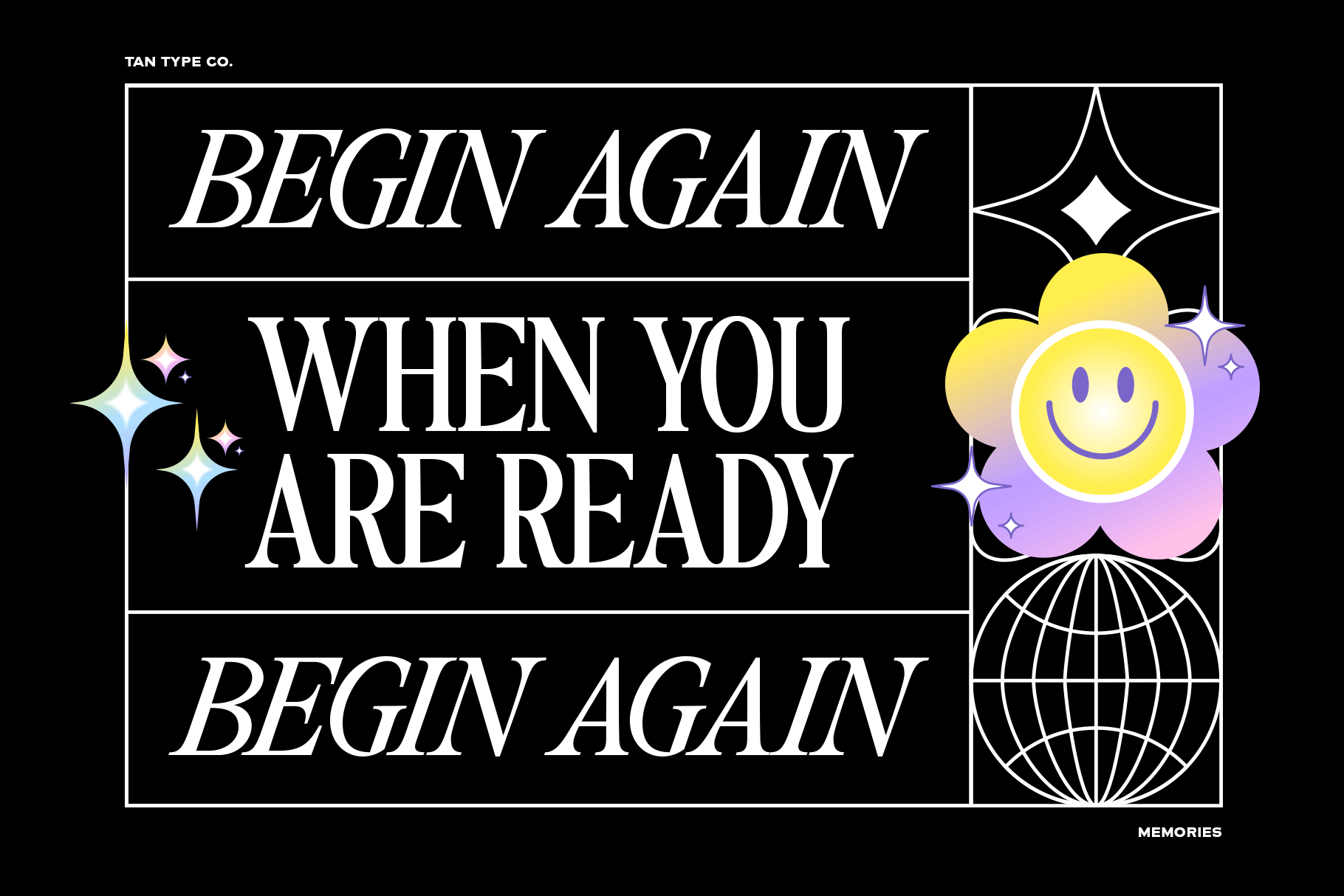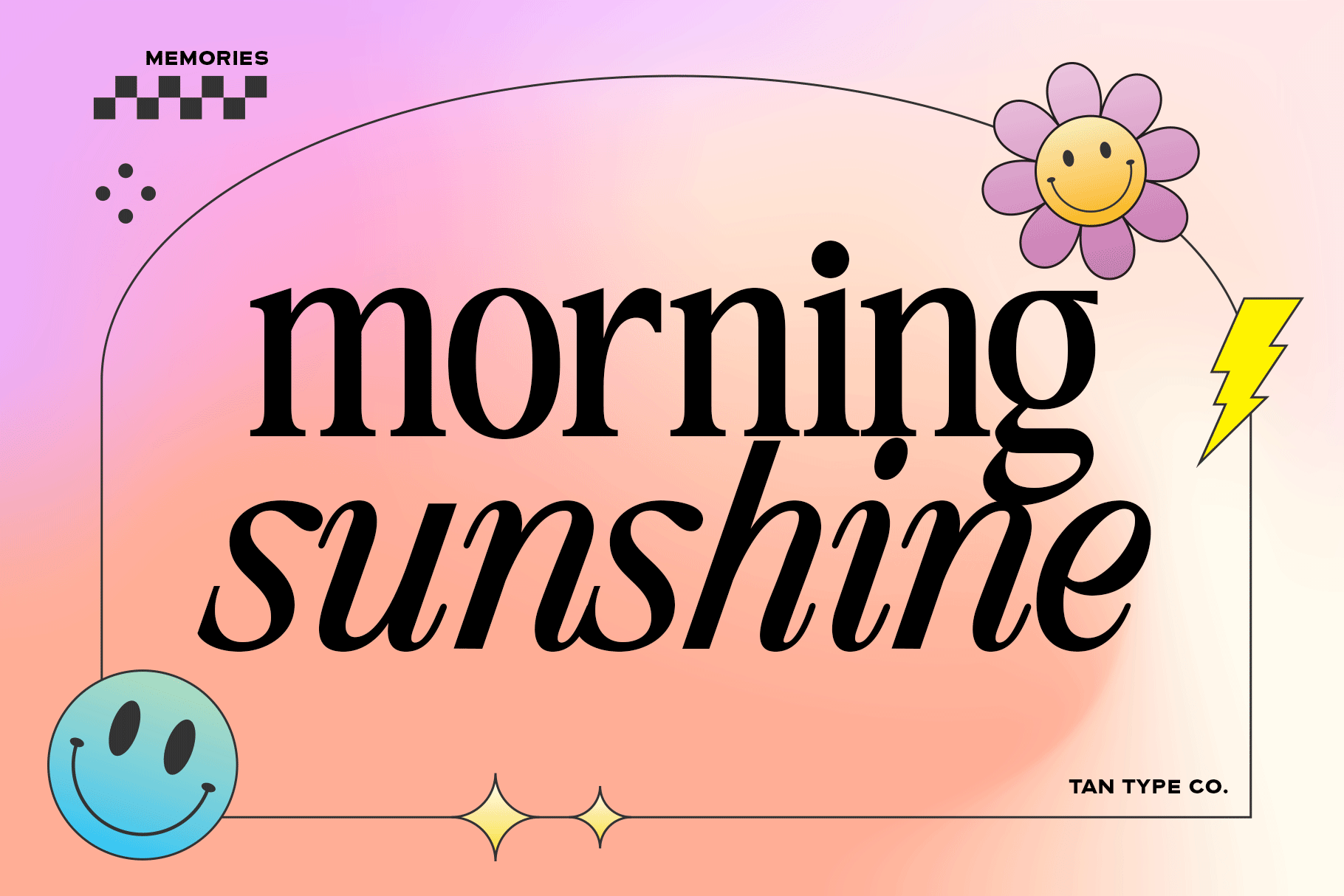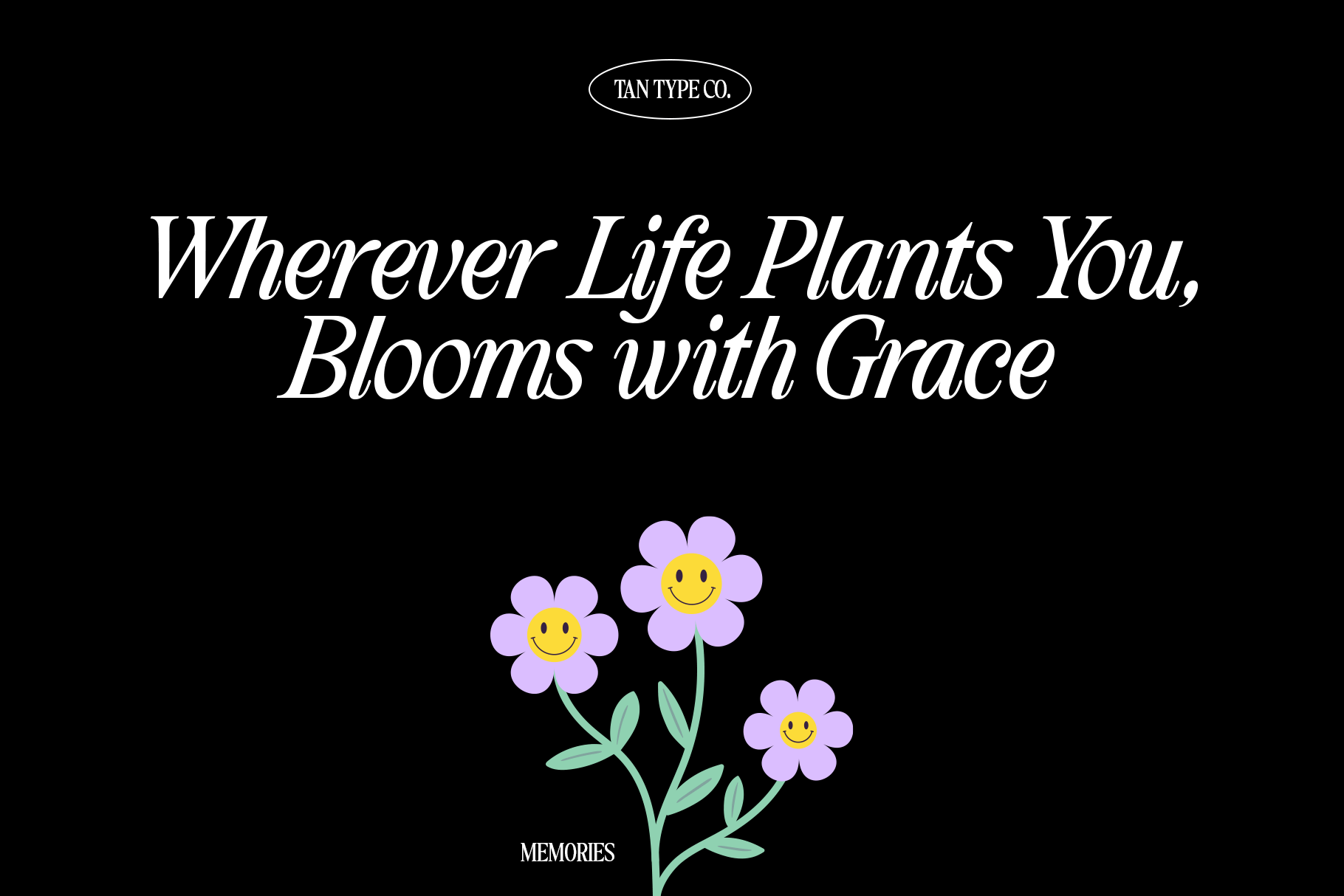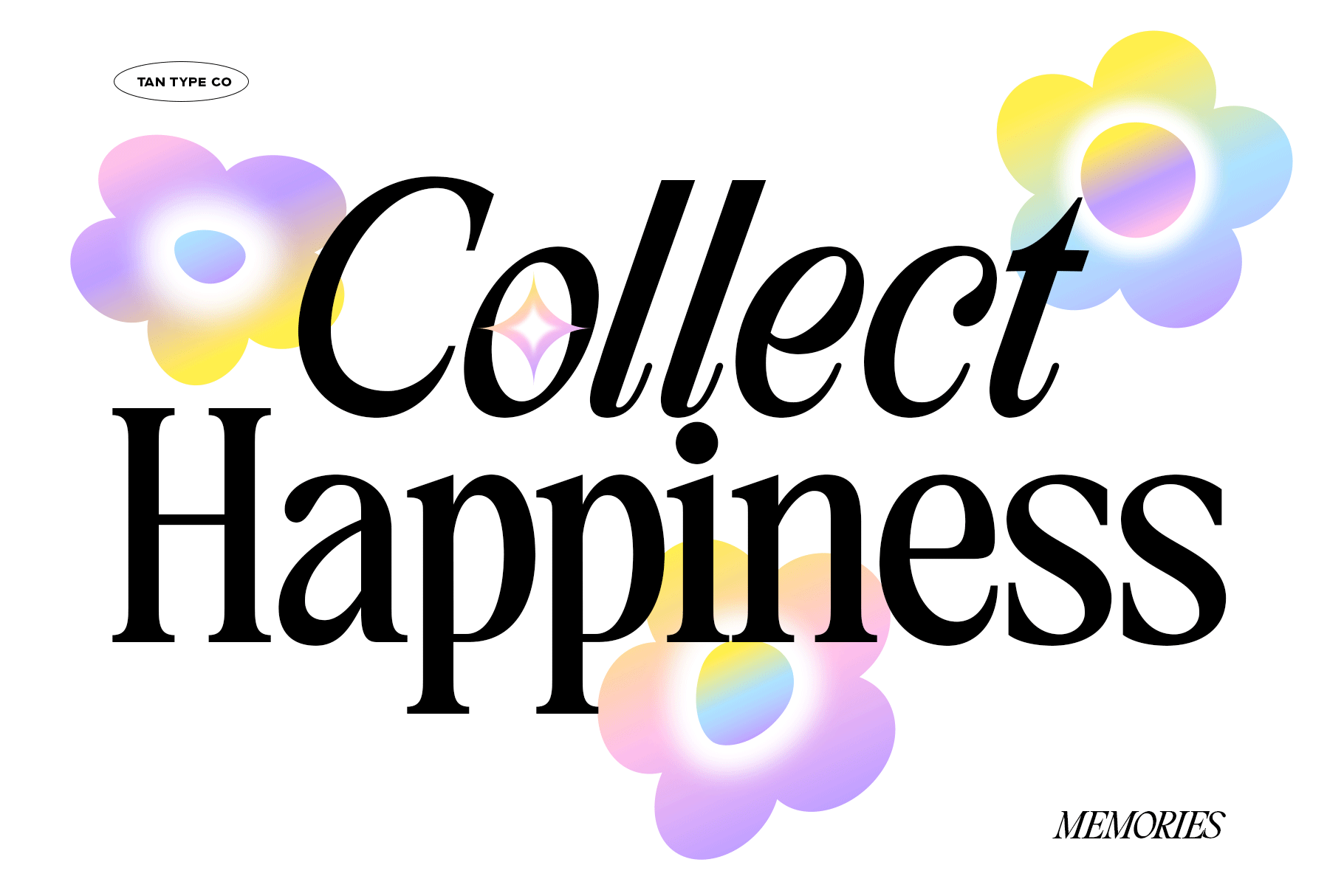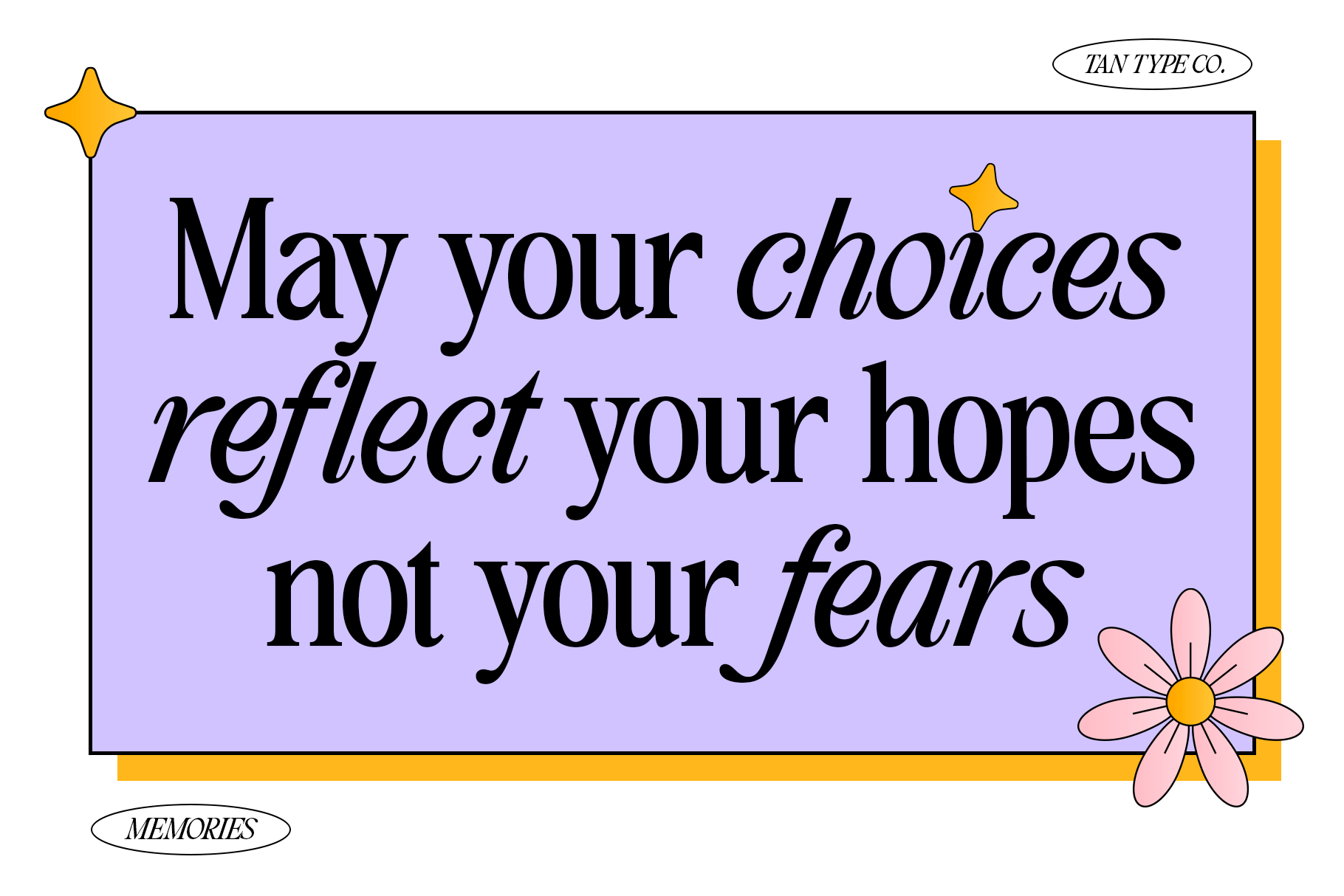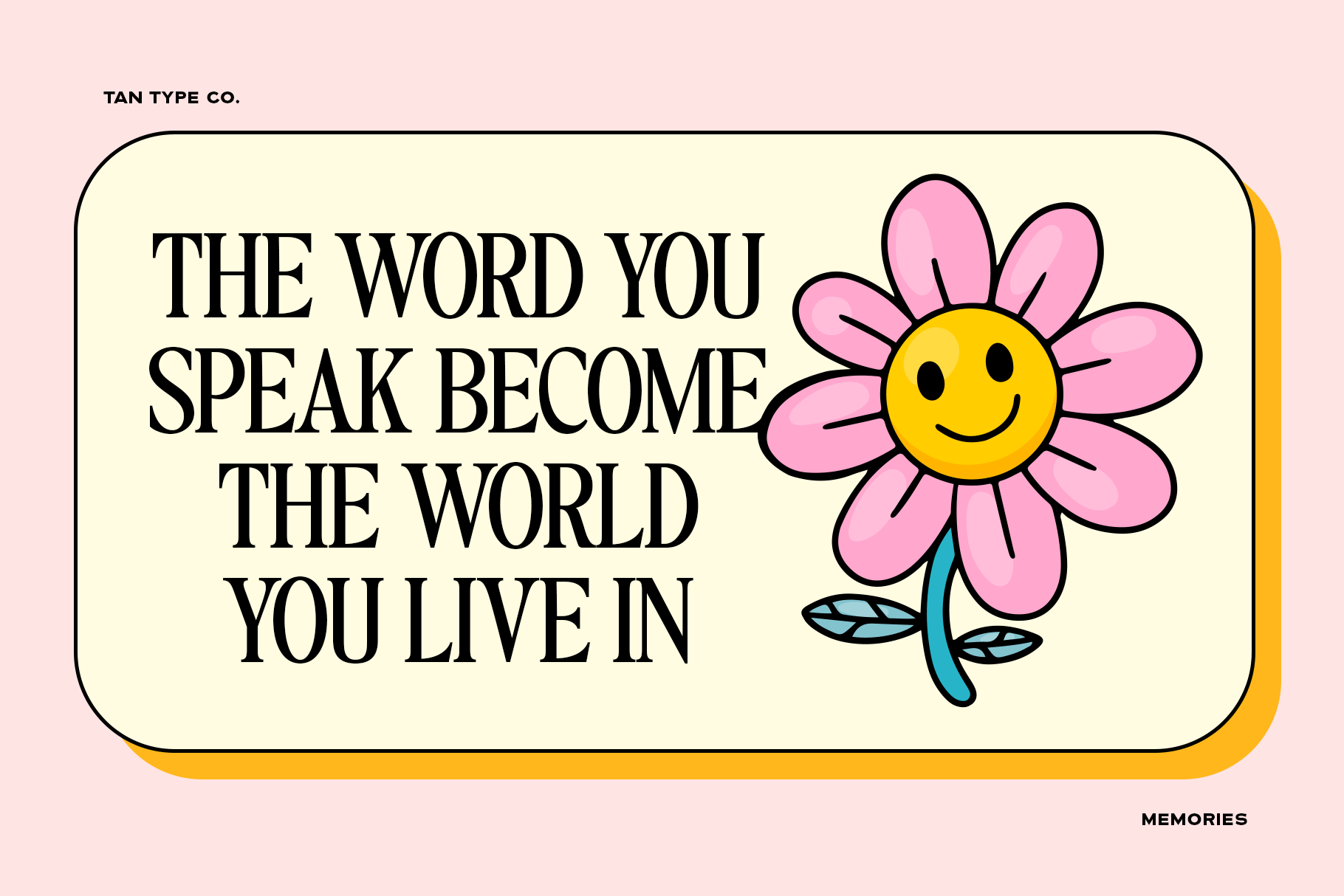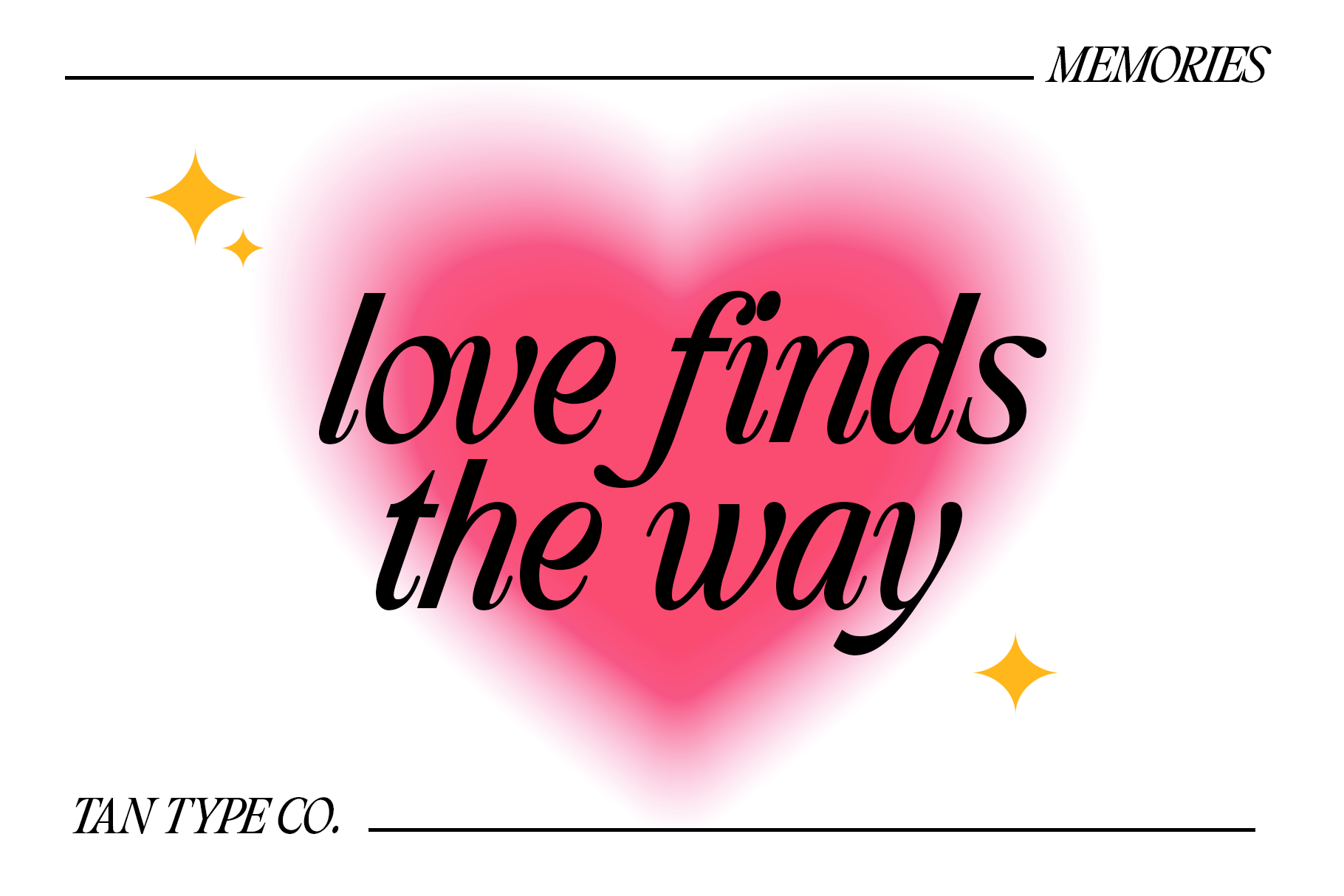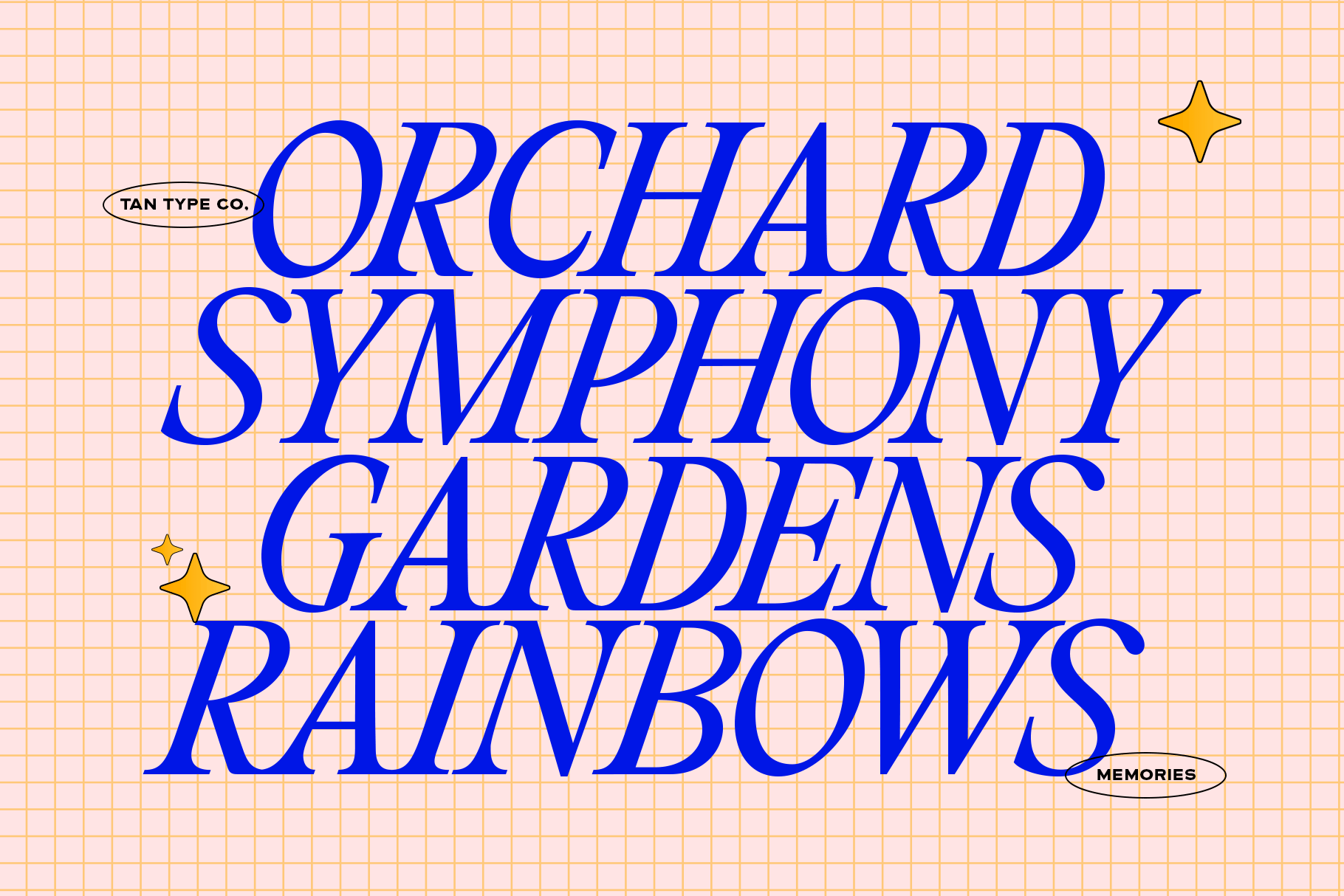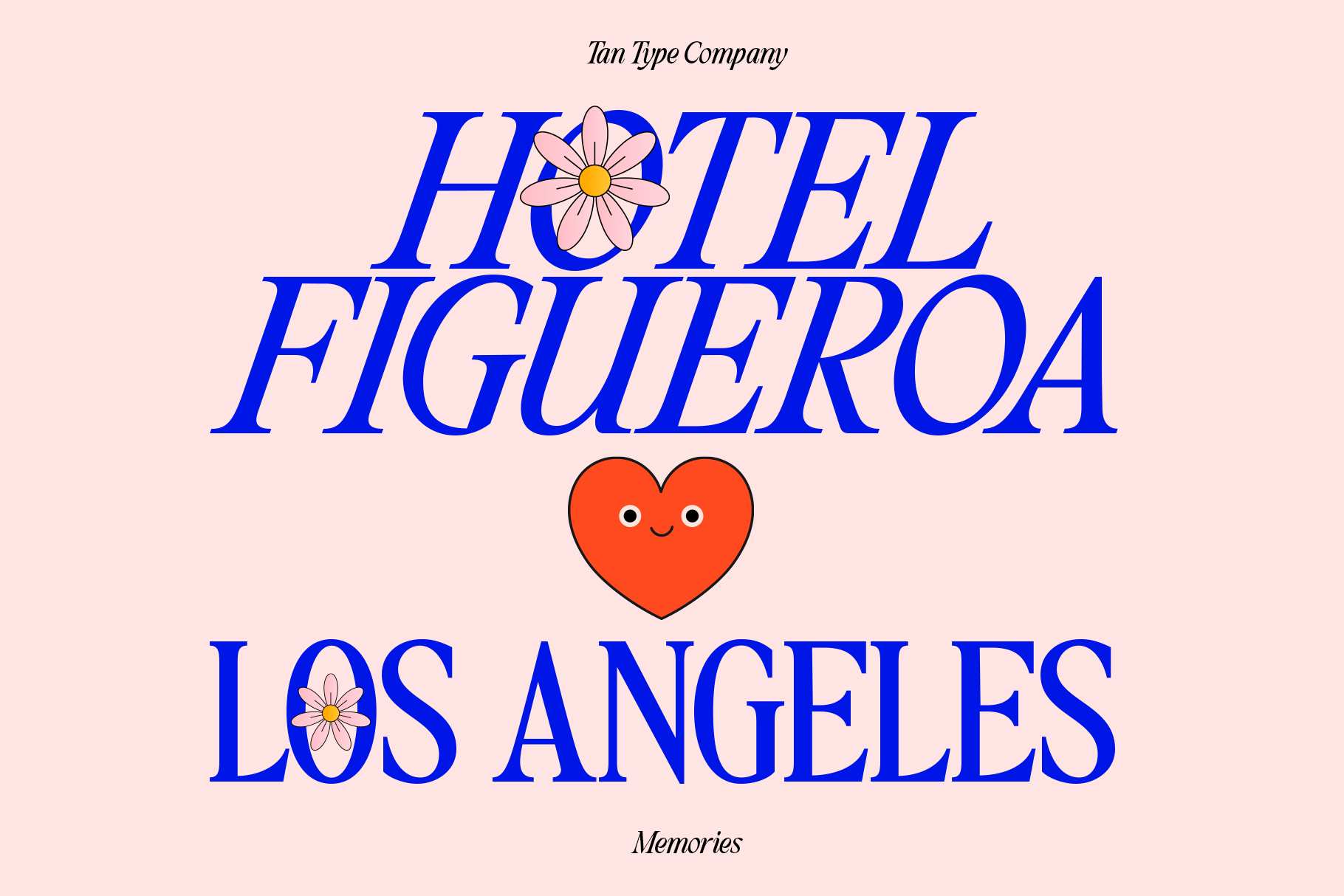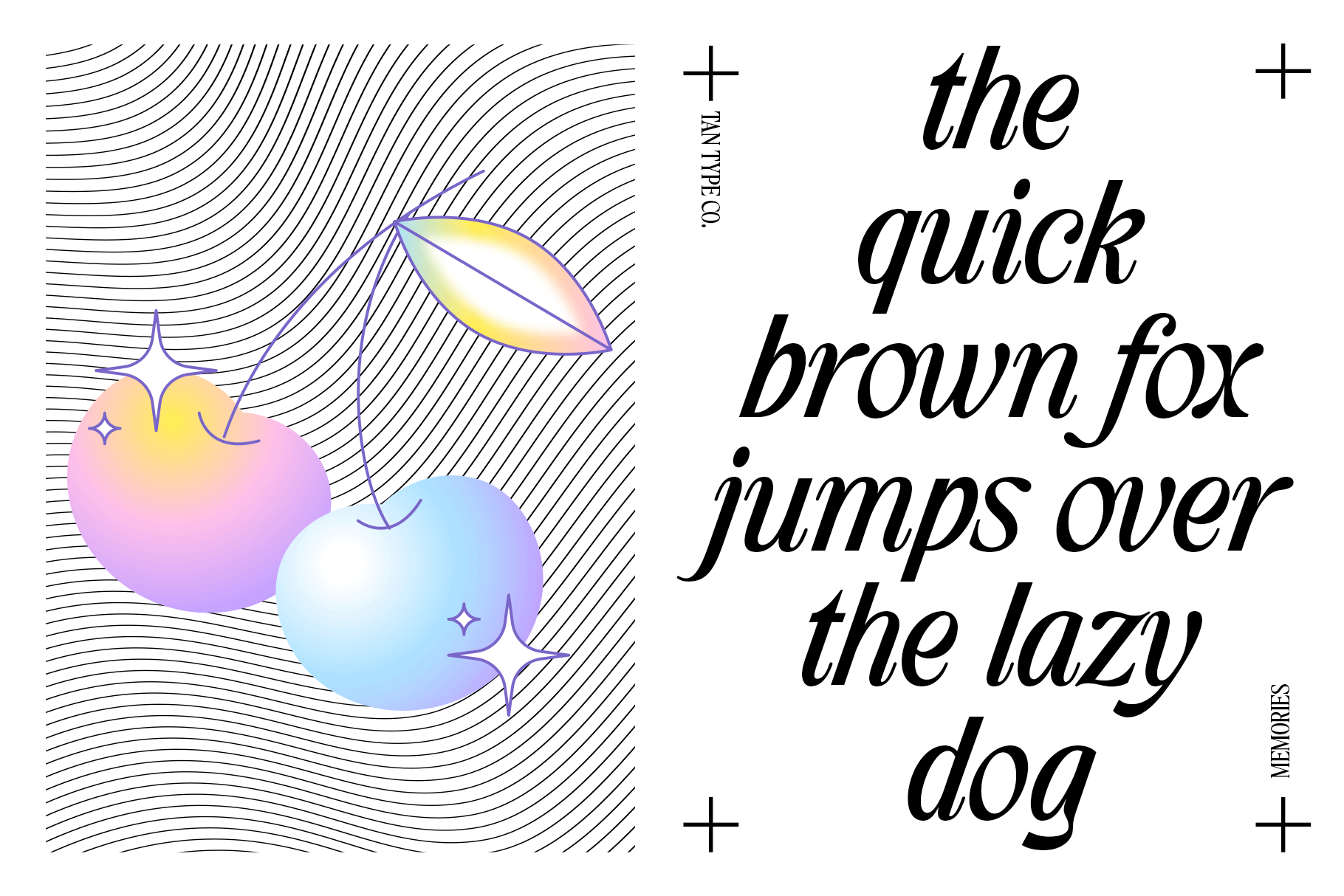
MEMORIES is a nostalgic yet modern display serif font that blends timeless elegance with editorial flair. With sharp serifs and high-contrast strokes in both Regular and Italic styles, it delivers sophistication with just the right amount of personality.